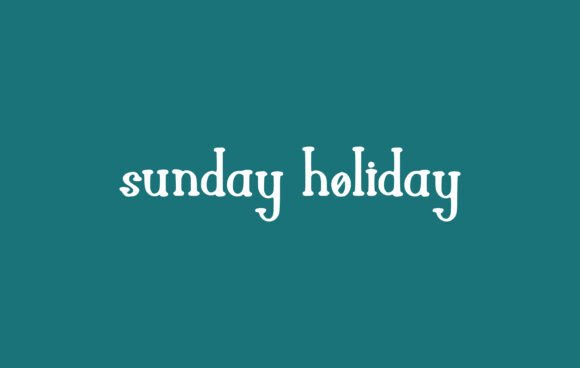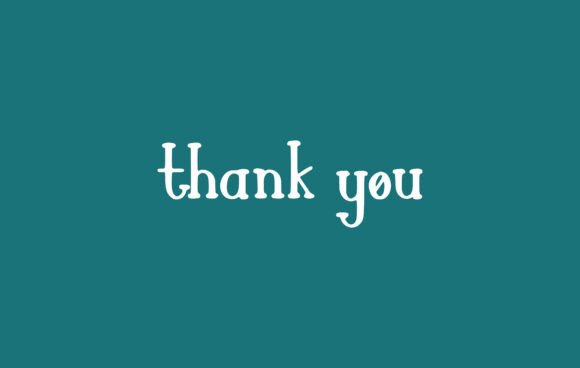
Ainhoa Font: Elevate Your Designs with a Romantic Handwritten Touch
In the world of typography, a well-crafted font can make all the difference in bringing your creative ideas to life. If you’re a designer or crafter looking for a unique and authentic handwritten font with a romantic touch, look no further than Ainhoa Font. This beautifully designed font is expertly crafted to capture the hearts of designers and audiences alike, making it a true favorite for a wide range of design projects.
The Charm of Ainhoa Font
Ainhoa Font boasts a distinctive, handwritten style that exudes warmth and elegance. Its romantic touch is perfect for designs that require a personal and emotive feel, such as wedding invitations, love letters, and sentimental cards. The font’s authentic, hand-crafted look and feel make it an excellent choice for designers seeking to add a touch of whimsy and personality to their work.
Versatility and Legibility
One of the standout features of Ainhoa Font is its exceptional legibility. Whether used as a title or body text, this font is easy to read and understand, making it perfect for a variety of design applications. From magazine headlines and social media graphics to branding and advertising materials, Ainhoa Font is a versatile choice that can elevate your designs to new heights.
Design Possibilities with Ainhoa Font
The possibilities are endless when it comes to using Ainhoa Font in your designs. Here are just a few ideas to get you started:
- Wedding Invitations: Add a touch of romance and whimsy to your wedding invitations with Ainhoa Font. Its elegant, handwritten style is perfect for formal and informal wedding designs alike.
- Social Media Graphics: Make your social media graphics stand out with Ainhoa Font. Use it to create eye-catching headlines, quotes, and promotional materials that will engage your audience.
- Branding and Packaging: Establish a unique brand identity with Ainhoa Font. Its distinctive style is perfect for logos, labels, and packaging materials that require a personal touch.
- Cards and Stationery: Add a touch of elegance to your cards and stationery with Ainhoa Font. Use it to create beautiful greeting cards, thank-you notes, and letters.
Why Choose Ainhoa Font?
With so many fonts available, why choose Ainhoa Font for your design projects? Here are just a few reasons:
- Unique Style: Ainhoa Font boasts a distinctive, handwritten style that will set your designs apart from the crowd.
- Exceptional Legibility: This font is easy to read and understand, making it perfect for a wide range of design applications.
- Romantic Touch: Ainhoa Font’s romantic touch is perfect for designs that require a personal and emotive feel.
- Versatility: Use Ainhoa Font for a variety of design projects, from wedding invitations and social media graphics to branding and packaging materials.
In conclusion, Ainhoa Font is a beautifully designed, authentic handwritten font with a romantic touch. Its exceptional legibility, versatility, and unique style make it a perfect choice for designers and crafters seeking to elevate their creative ideas. Whether you’re working on a wedding invitation, social media graphic, or branding project, Ainhoa Font is sure to impress. So why wait? Download Ainhoa Font today and take your designs to new heights!